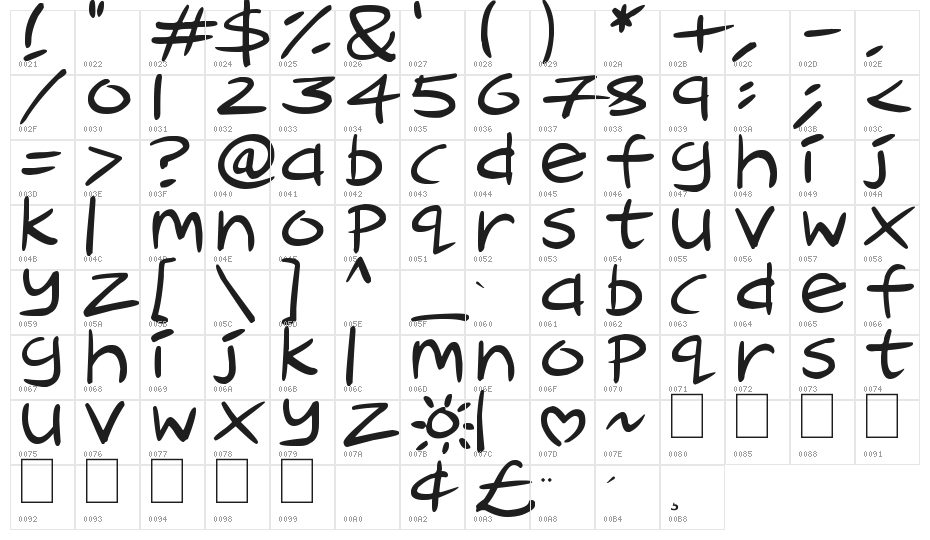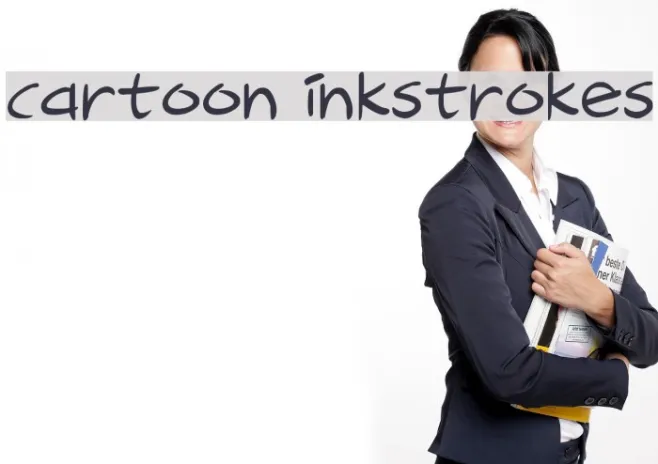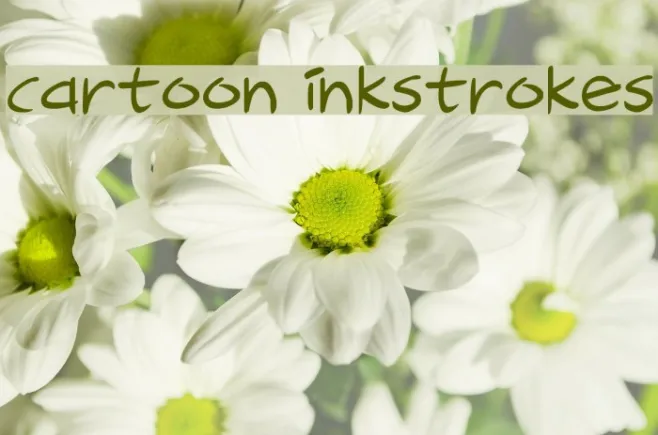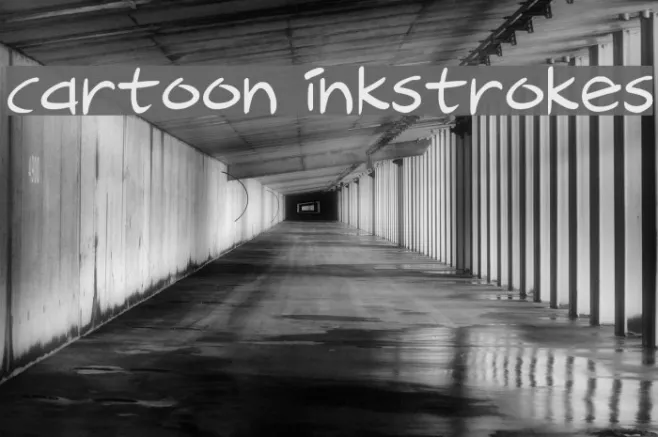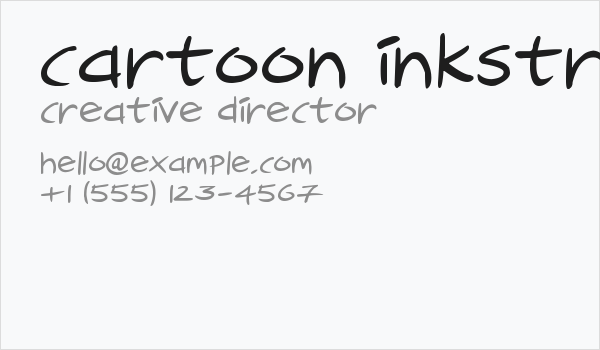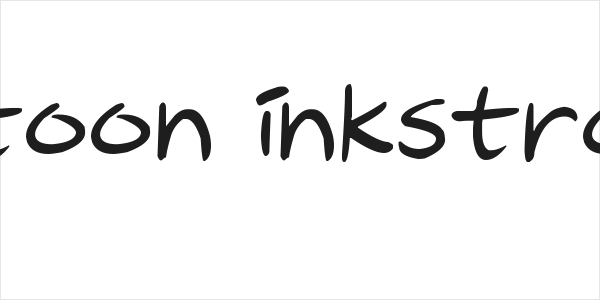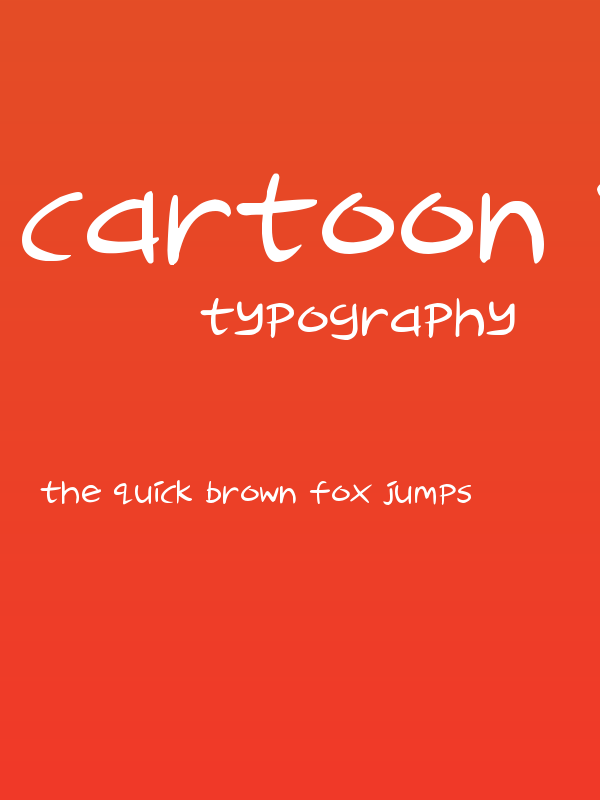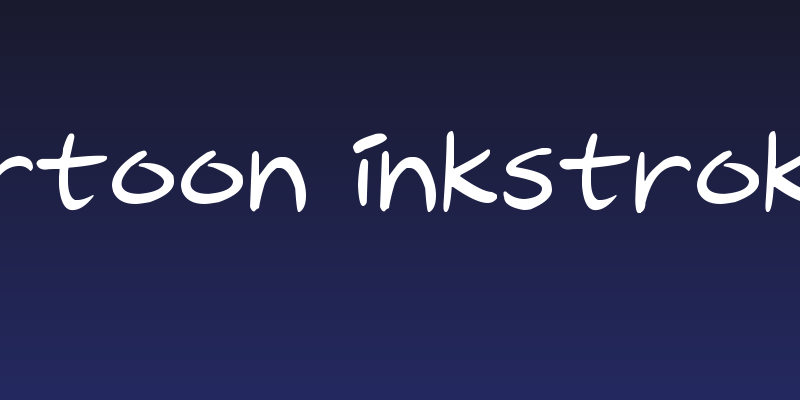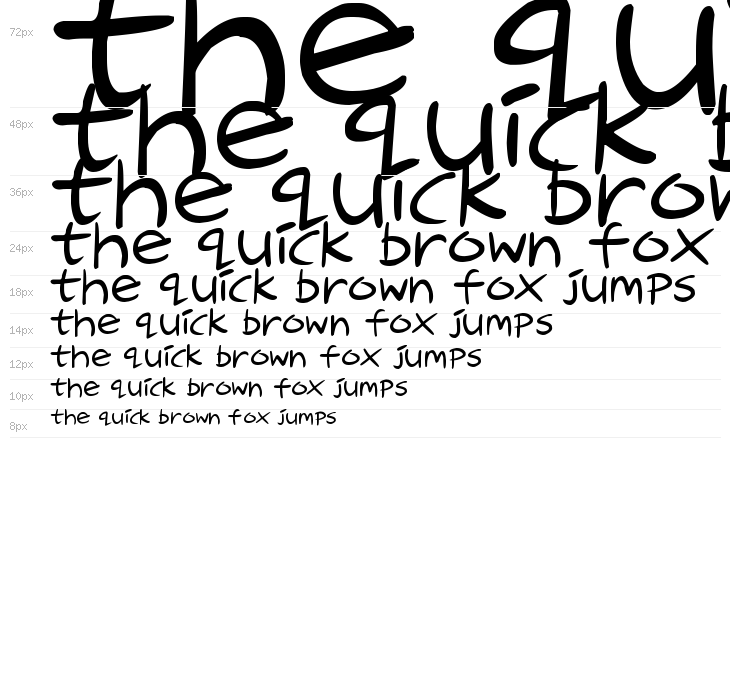
Cartoon Inkstrokes Font
Cartoon Inkstrokes Description
This playful and whimsical font features a hand-drawn, cartoonish style that exudes a sense of fun and creativity. The characters are bold and slightly irregular, with a casual, informal appearance that mimics the strokes of a marker or brush. The letters have a rounded, friendly look, with varying stroke widths that add to the dynamic and lively feel of the font. The overall design is approachable and engaging, making it ideal for projects that require a touch of humor or lightheartedness. The font includes a full set of uppercase and lowercase letters, numbers, and a variety of special characters, ensuring versatility for different design needs.
| Proposed Projects | Ideal for children's books, comic strips, playful branding, greeting cards, and creative posters. |